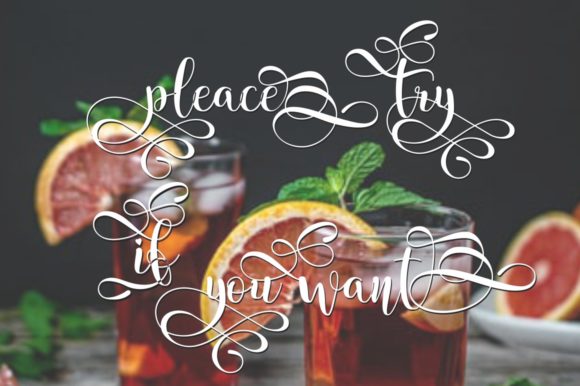
Introduction to Putry Font
Putry is a lovely script font carefully created with a touch of elegance.
This beautiful font will add a romantic touch to any crafting project This font is PUA encoded which means you can access all of the glyphs and swashes with ease.
Key Features of Putry Font